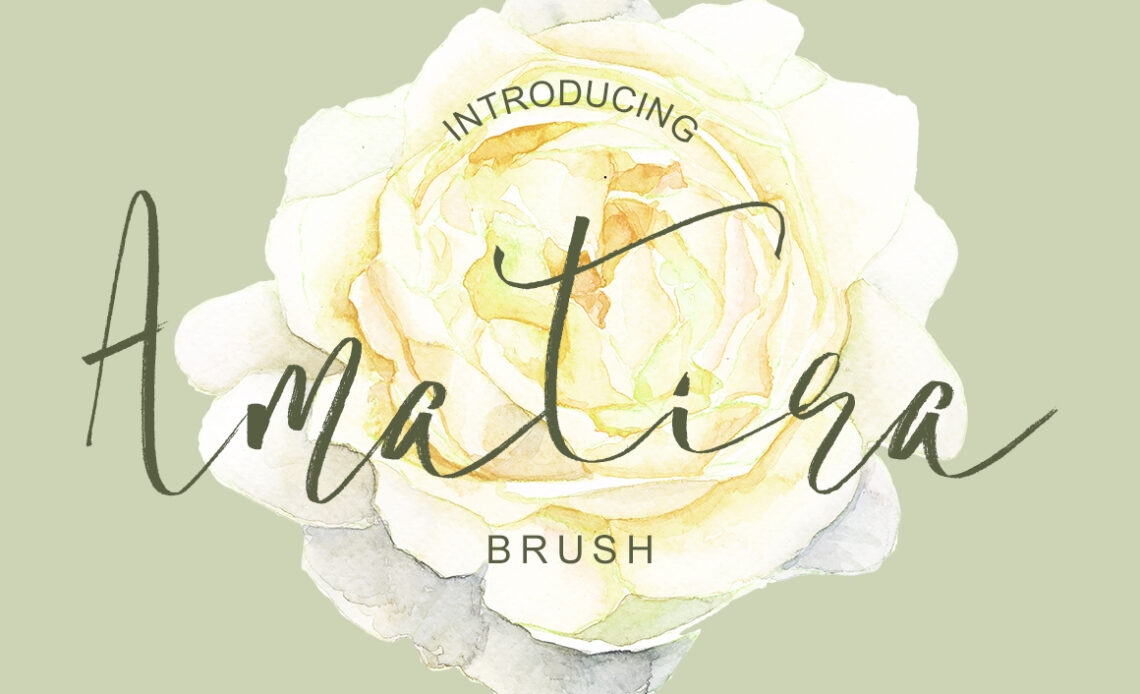
Introducing Amatira Font, the ultimate brush script font that captures the essence of modern calligraphy, brimming with charm and sophistication. Let your designs dance with elegance as Amatira weaves its magic, leaving a lasting impression on your audience. Dive into a world of creative possibilities and let your imagination soar with this captivating font at your fingertips. Discover the art of beautiful typography and elevate your designs to new heights with Amatira.
With Amatira, you'll unlock a world of creative potential, transforming your designs into masterpieces. Say goodbye to mundane fonts and embrace the allure of Amatira's enchanting strokes, meticulously crafted to bring your words to life. Immerse yourself in the beauty of each letterform, crafted with precision and passion, adding an artistic flair to every project. Amatira is not just a font; it's an invitation to let your creativity flow, to express yourself with a touch of elegance and charm.
Amatira's versatility knows no bounds. Whether you're creating stunning logos, captivating social media posts, or eye-catching invitations, this font will effortlessly elevate your designs. Its modern style adds a touch of sophistication to any project, while its easy-to-read nature ensures your message is always clear and impactful. Amatira is the perfect choice for those seeking a font that combines beauty and functionality, allowing your creativity to shine through in every project.
So, why settle for ordinary fonts when you can elevate your designs with Amatira? Join the ranks of creative professionals and design enthusiasts who have embraced the magic of this remarkable font. Let Amatira be your muse, guiding you towards design excellence and leaving a trail of beauty in its wake. Experience the joy of creating with a font that inspires and captivates, transforming your everyday projects into works of art.